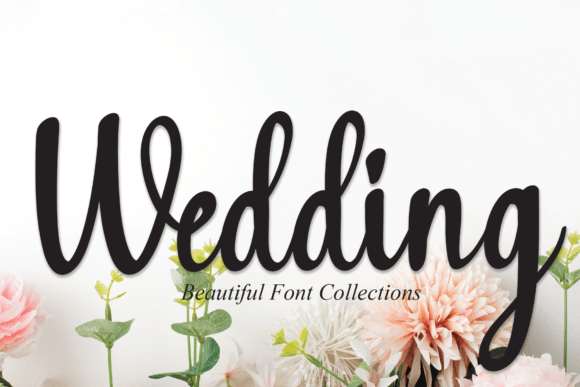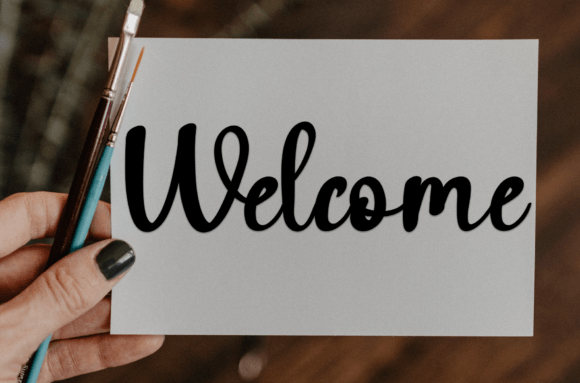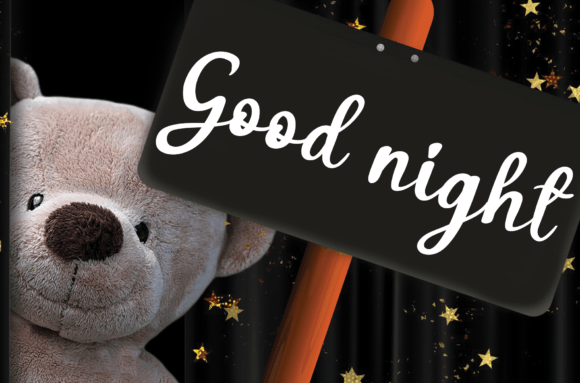
Wedding Font
What Is Wedding Font?
Wedding is a sweet and friendly handwritten font designed to make your projects feel warm and personal. Each letter has smooth curves and a clean look, adding a joyful, approachable style to any design. If you want your work to stand out with a cheerful touch, Wedding is the perfect font to use.
You’ll love how it transforms ordinary text into something delightful and memorable.
Wedding is a versatile font that fits beautifully into many creative projects. For example, it shines on wedding invitations. Whether your theme is modern, classic, or rustic, this font brings an elegant and heartfelt feel to every word.
It’s also perfect for greeting cards. When you want your messages to feel sincere and special, Wedding helps you express them in a lovely way.
Additionally, you can use it for social media graphics. If you’re sharing quotes, announcing events, or posting about special occasions, this font makes your content more engaging and eye-catching.
Wedding is great for labels, product packaging, and logos too. Its friendly look helps any brand feel genuine and approachable. Whether you’re working on personal crafts or professional branding, Wedding adapts easily to any style.
Why Choose Wedding Font?
There are plenty of reasons to include Wedding in your font collection. First, it stays clear and readable at any size. From large titles to small captions, every letter remains smooth and balanced.
It pairs well with serif and sans-serif fonts, allowing you to create polished and professional layouts with ease.
Wedding adds personality, charm, and warmth to any project. If you want your designs to feel joyful and inviting, this font makes it effortless.
Even the simplest layouts become more dynamic with Wedding’s smooth, playful strokes. Whether you’re creating invitations, social media posts, or labels, your designs will look polished and memorable.
Using a high-quality handwritten font also shows your attention to detail and helps you build trust with your audience.
Wedding is more than just a font—it’s a creative tool that brings happiness and style to your work. From wedding invitations and greeting cards to branding and packaging, it adds a sweet, personal touch that makes every project shine.